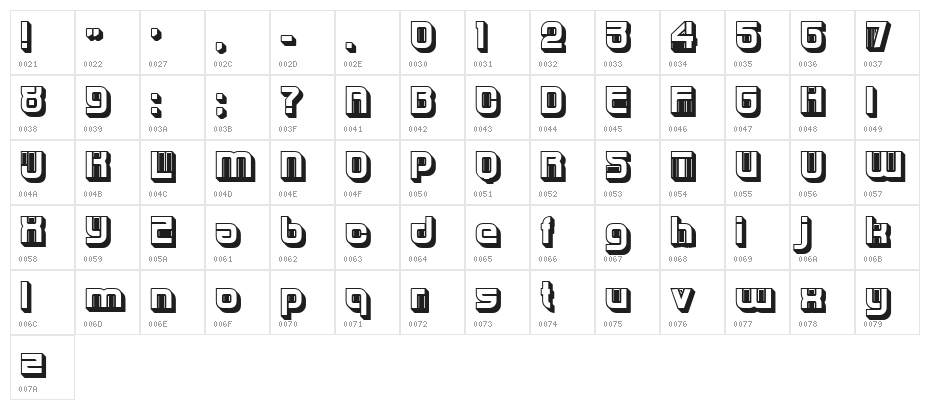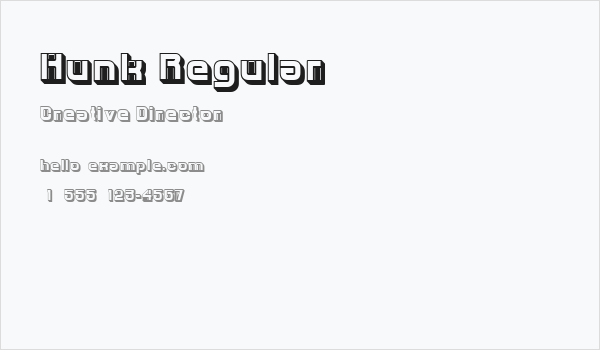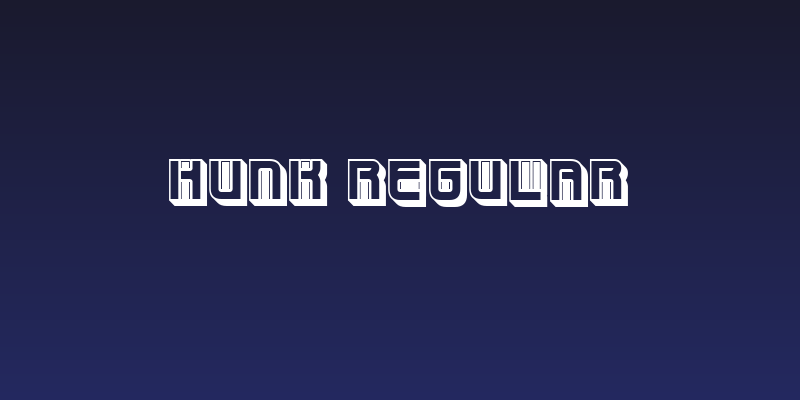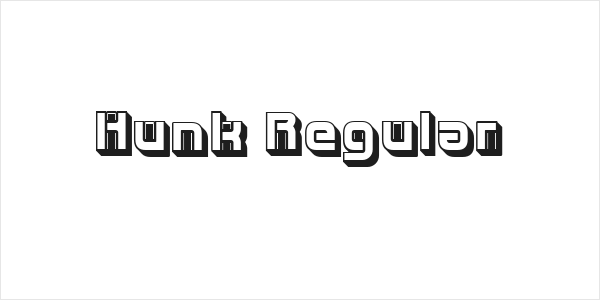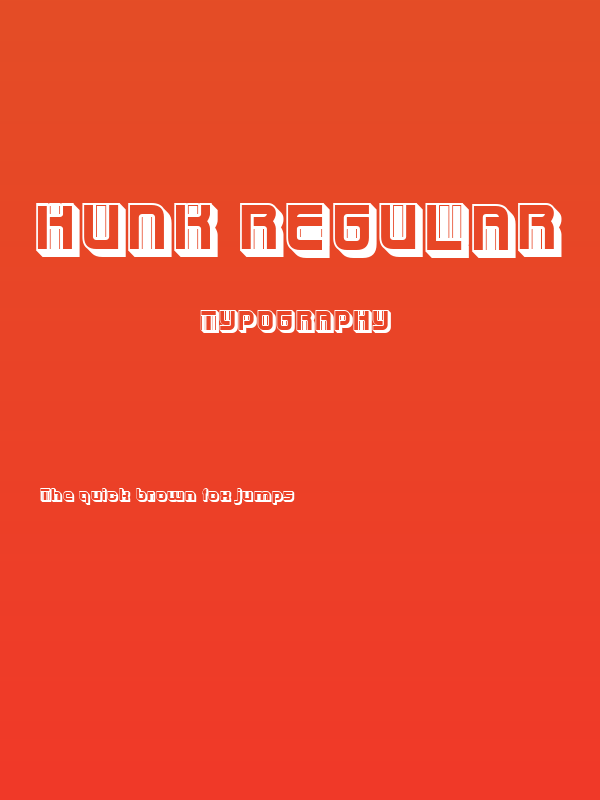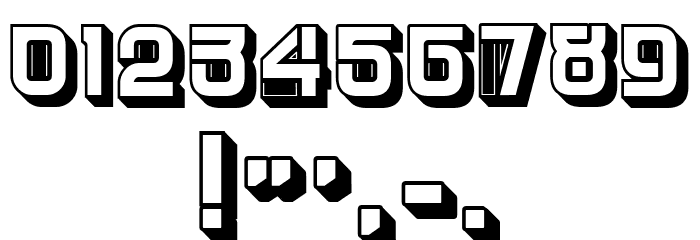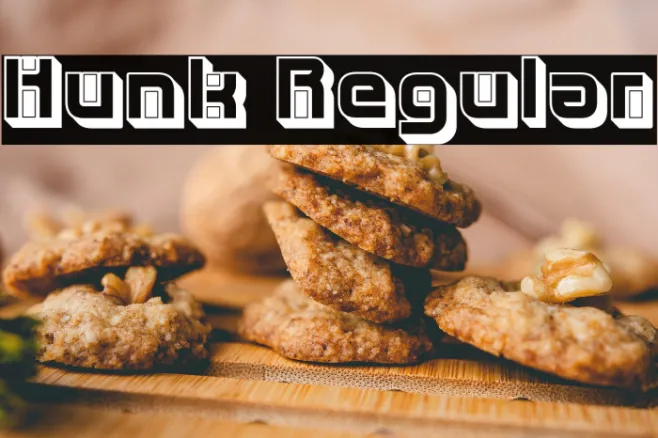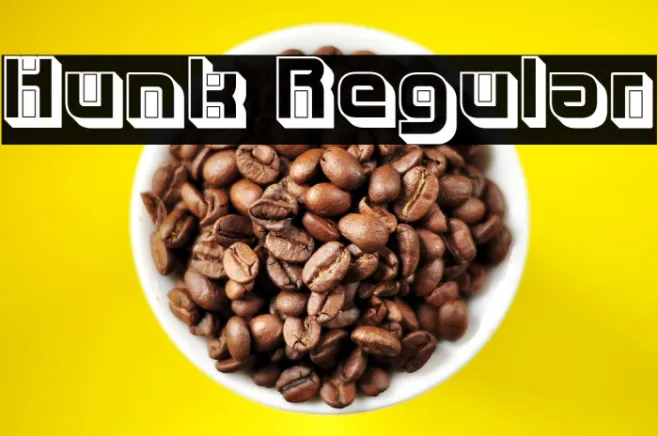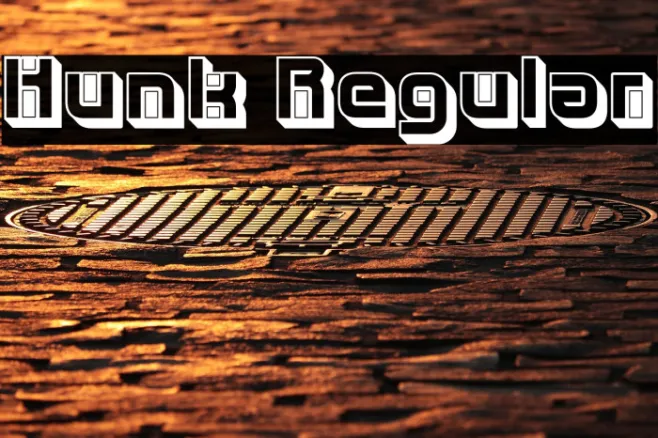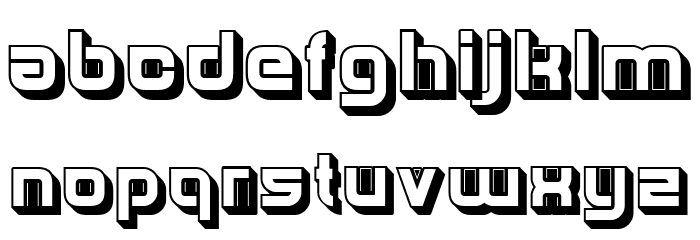
Hunk Regular Font
Hunk Regular Description
This font features a bold, three-dimensional design with a strong, impactful presence. Each character is outlined with a thick shadow, giving it a distinct, blocky appearance. The uppercase and lowercase letters maintain a consistent style, with angular edges and a geometric structure. The numbers and special characters follow the same bold and shadowed design, ensuring uniformity across all glyphs. This font is designed to stand out, making it ideal for attention-grabbing headlines and titles.
| Proposed Projects | Ideal for posters, logos, video game graphics, and any project requiring a bold, eye-catching typeface. |